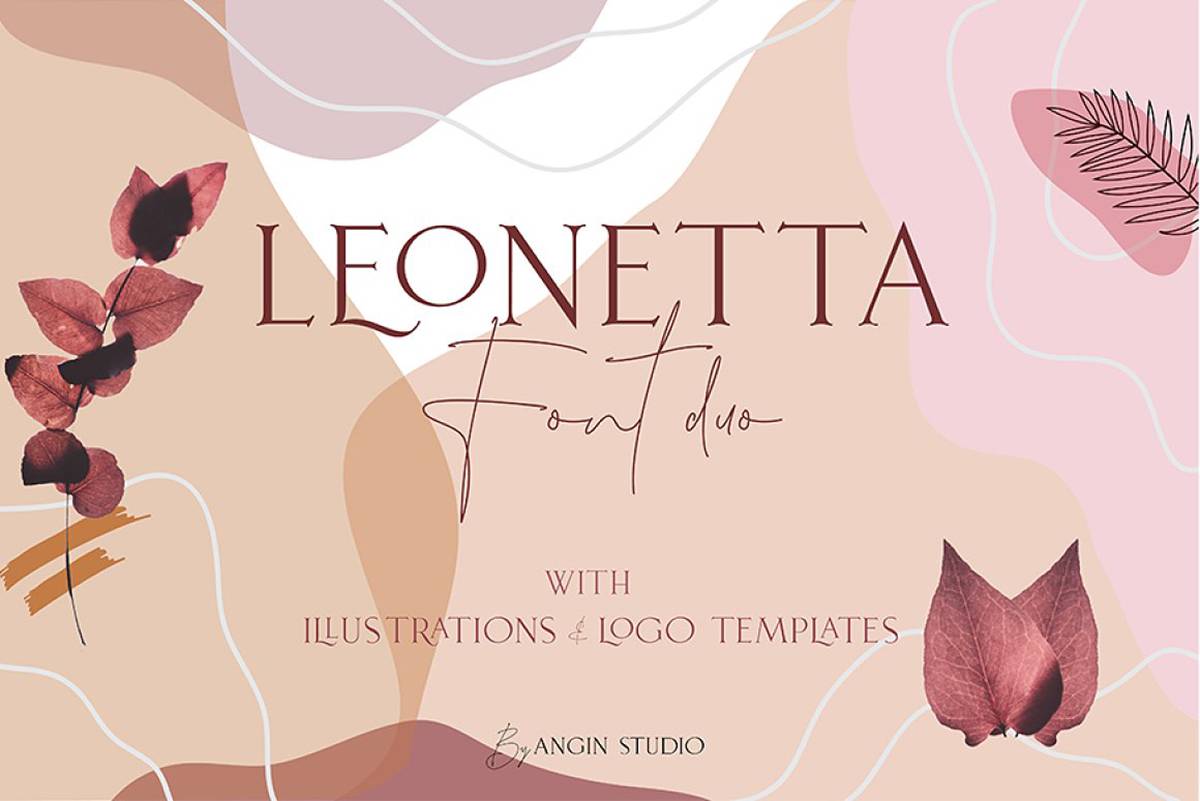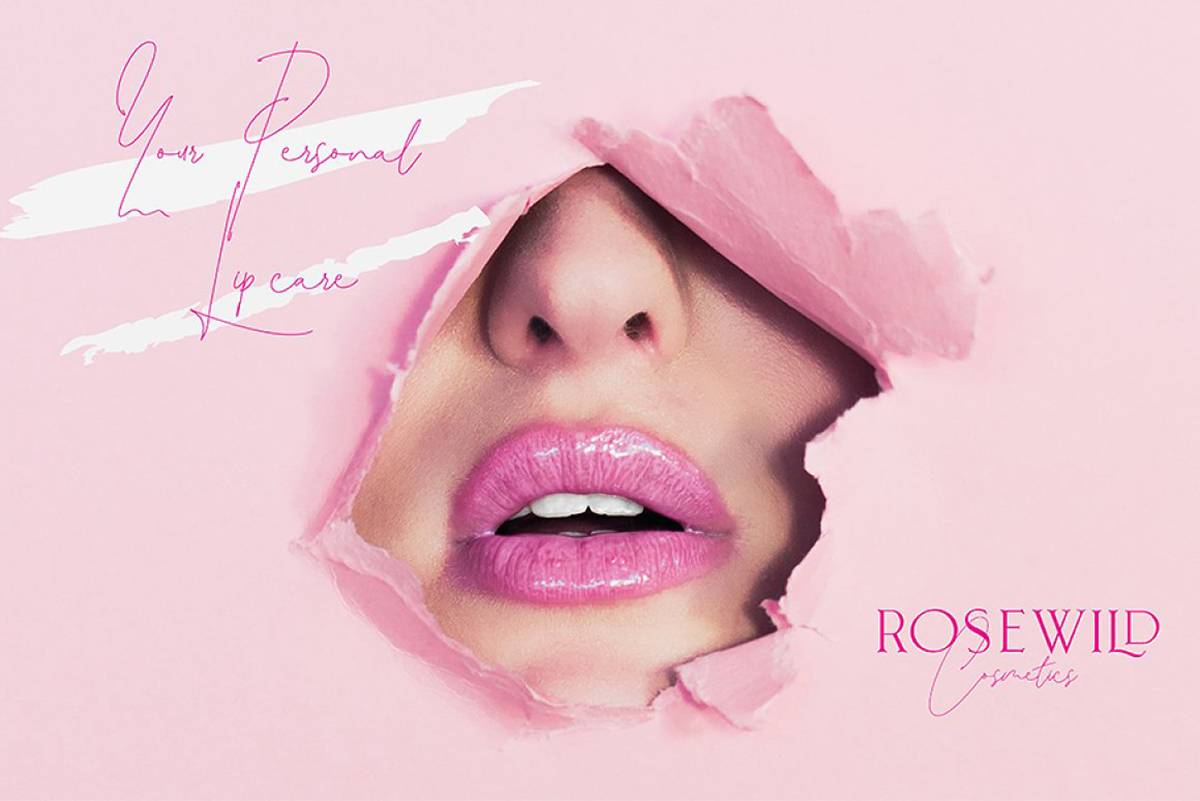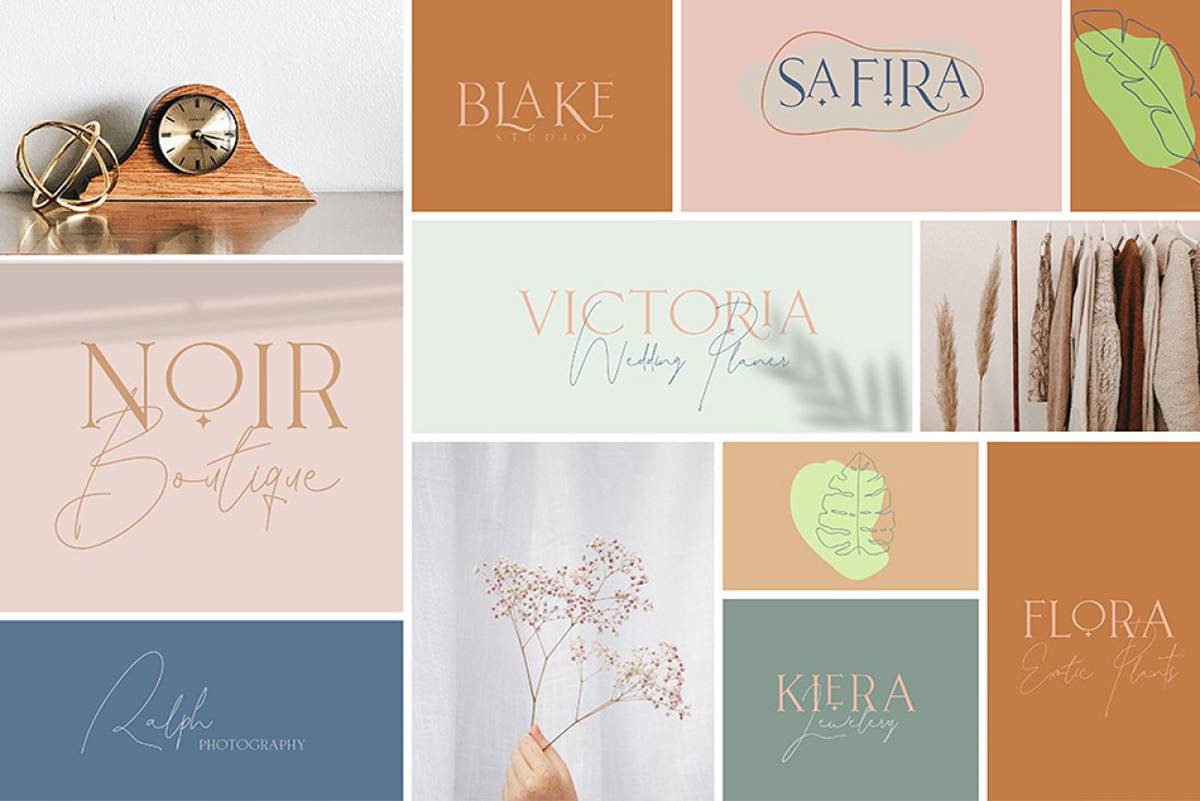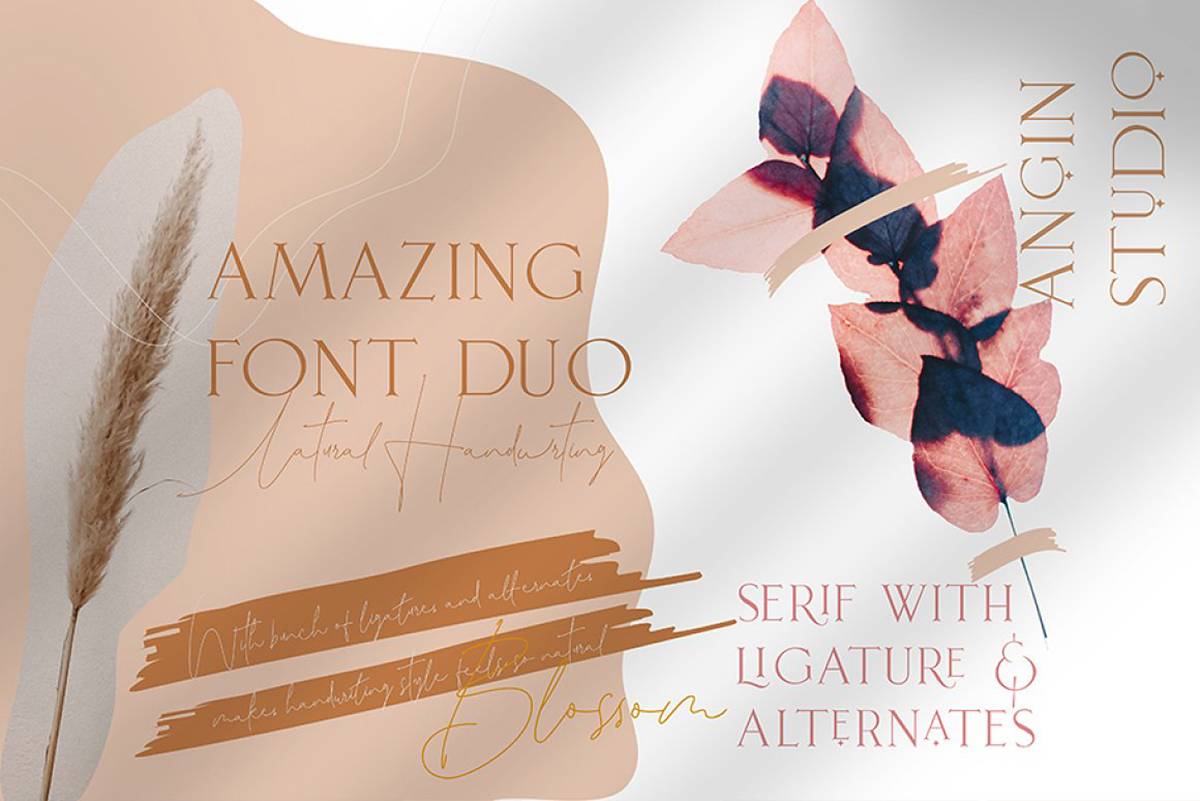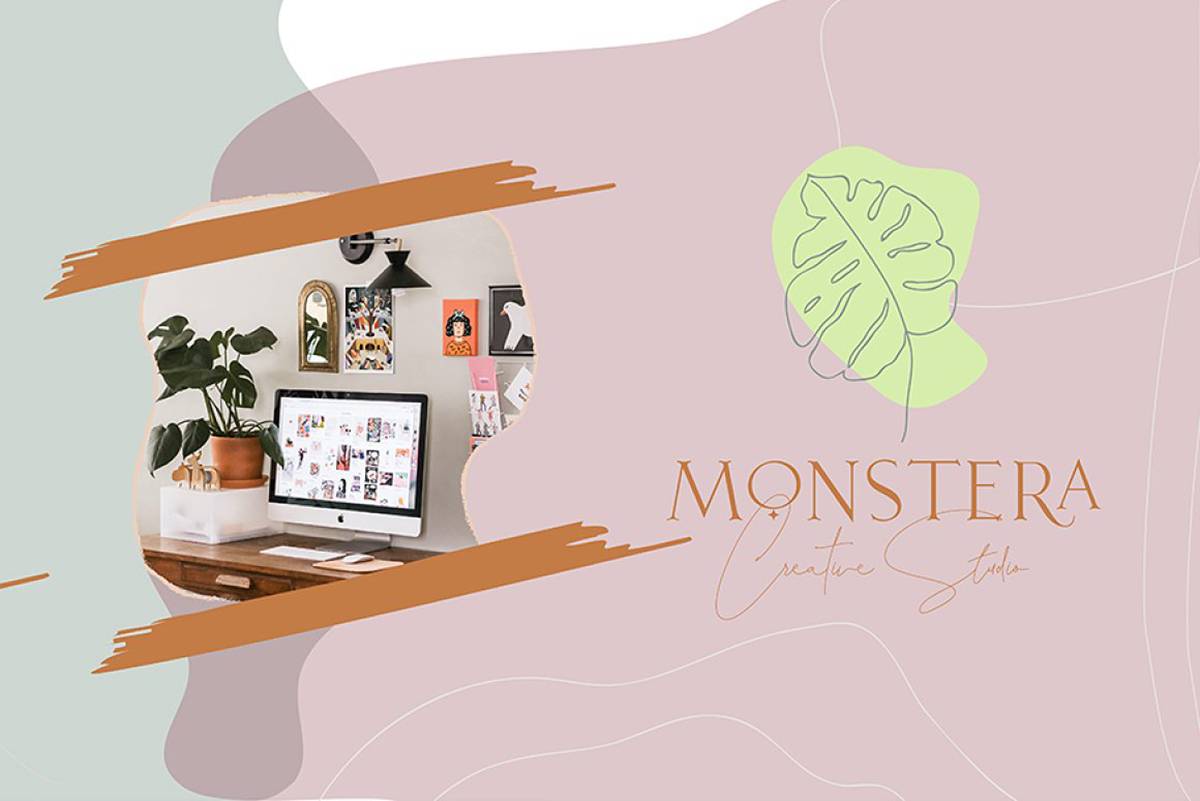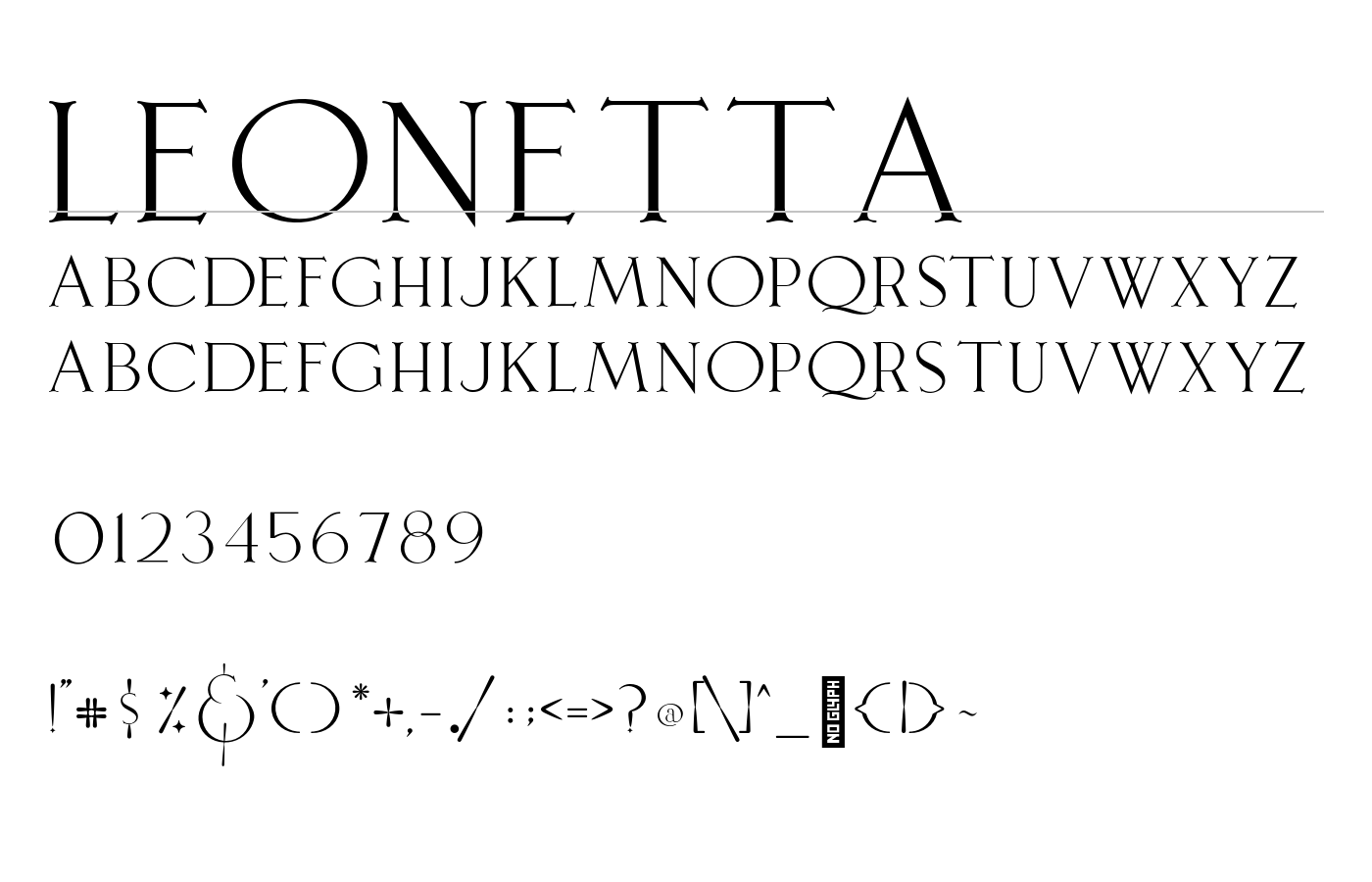
Leonetta is a refined serif font with elegant, thin strokes and delicate contrast, evoking a sophisticated and timeless feel. Its tall, slender letterforms and subtle details, like the sharp serifs and graceful curves, make it ideal for luxury branding, editorial headlines, and stylish packaging where a classic yet distinctive look is desired. This font combines readability with high-end charm, perfect for projects seeking a polished and graceful aesthetic.
Leonetta Font
About Leonetta Font